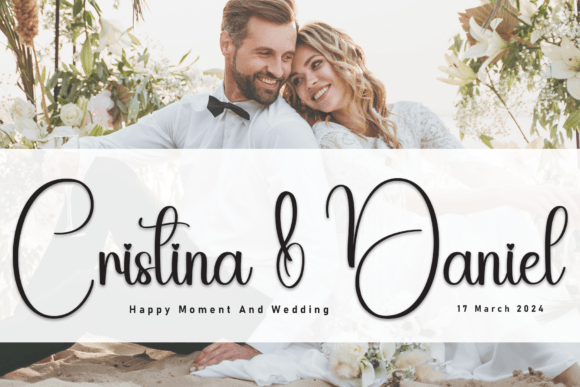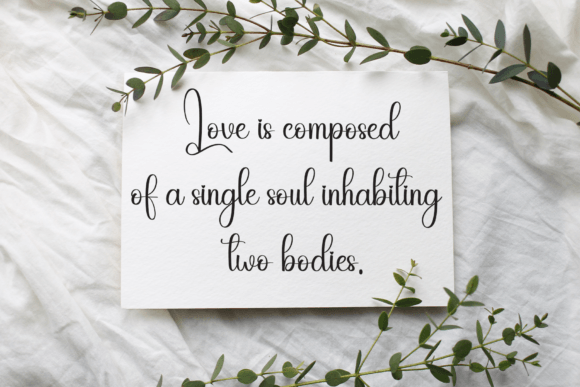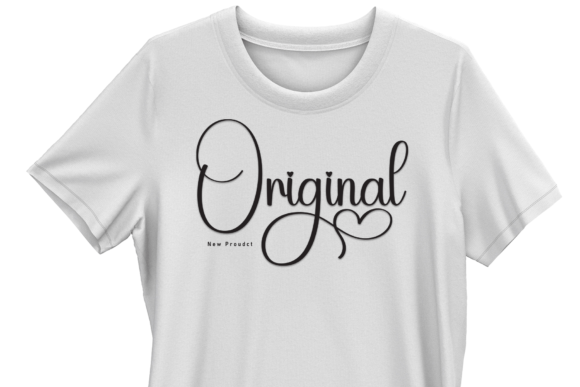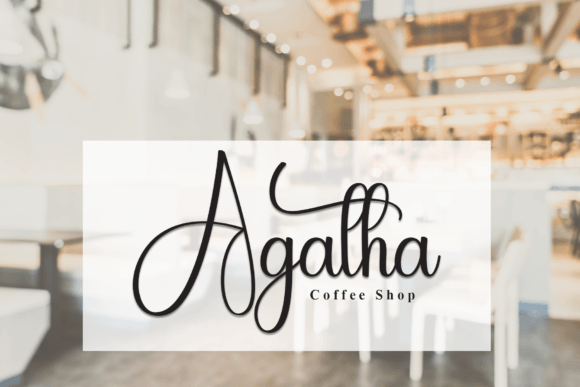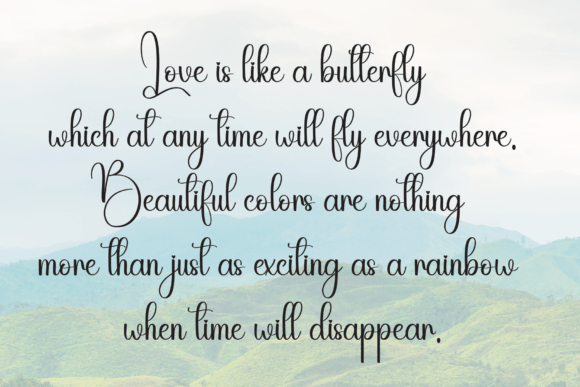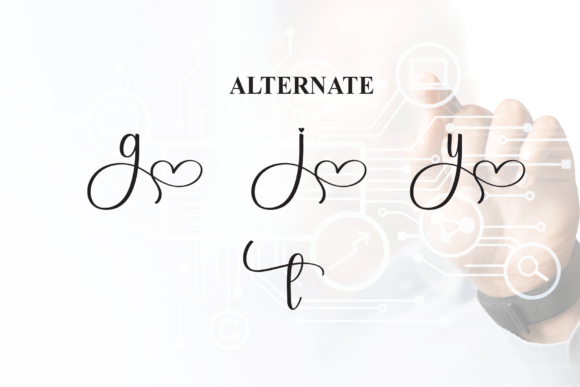
Introducing Digital: The Ultimate Stylish Script Font for Elegant Designs
In the world of digital design, fonts play a crucial role in conveying the tone and aesthetic of a project. For designers and crafters looking to add a touch of elegance and sophistication to their work, the Digital font is an excellent choice. This stylish and incredibly elegant script font is perfect for a variety of design applications, from wedding invitations and thank you cards to quotes, greeting cards, logos, and business cards.
The Characteristics of Digital Font
Digital is a script font that boasts a high level of elegance and refinement. Its flowing lines and curves give it a handwritten feel that is both personal and sophisticated. The font features:
- Beautifully crafted letters: Each letter in the Digital font has been carefully designed to showcase a high level of craftsmanship. The letters are flowing and connected, creating a sense of continuity and harmony.
- Highly legible: Despite its elegant and cursive nature, the Digital font remains highly legible, making it suitable for use in a variety of design applications, from large headings to smaller body text.
- Versatile: The Digital font is incredibly versatile and can be used in a wide range of design projects, from digital designs to print materials.
Uses of Digital Font
The Digital font is perfect for designers and crafters looking to add a touch of elegance and sophistication to their work. Here are some of the many uses of this beautiful script font:
- Wedding Invitations: The Digital font is an excellent choice for wedding invitations, adding a touch of romance and elegance to your design.
- Thank You Cards: Express your gratitude in style with the Digital font, perfect for creating beautiful and heartfelt thank you cards.
- Quotes: Add a touch of sophistication to your quotes with the Digital font, making them perfect for social media, blogs, or print materials.
- Greeting Cards: Create stunning greeting cards for any occasion with the Digital font, from birthdays to holidays.
- Logos: The Digital font is also suitable for use in logos, providing a unique and elegant touch to your brand’s identity.
- Business Cards: Stand out from the crowd with the Digital font, perfect for creating professional and stylish business cards.
Why Choose Digital Font?
With so many fonts available, why choose the Digital font? Here are just a few reasons why this elegant script font stands out from the rest:
- Unique and Elegant: The Digital font offers a unique and elegant touch to your designs, setting you apart from the crowd.
- Highly Versatile: This font is incredibly versatile, making it suitable for use in a wide range of design applications.
- Easy to Read: Despite its elegant nature, the Digital font remains highly legible, making it perfect for use in both large headings and smaller body text.
In conclusion, the Digital font is an excellent choice for designers and crafters looking to add a touch of elegance and sophistication to their work. With its beautifully crafted letters, high legibility, and versatility, this stylish script font is perfect for a wide range of design applications. Whether you’re creating wedding invitations, thank you cards, quotes, greeting cards, logos, or business cards, the Digital font is sure to impress.